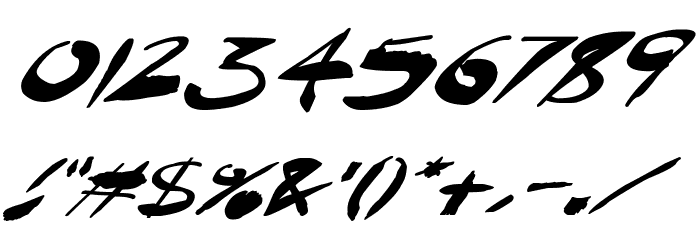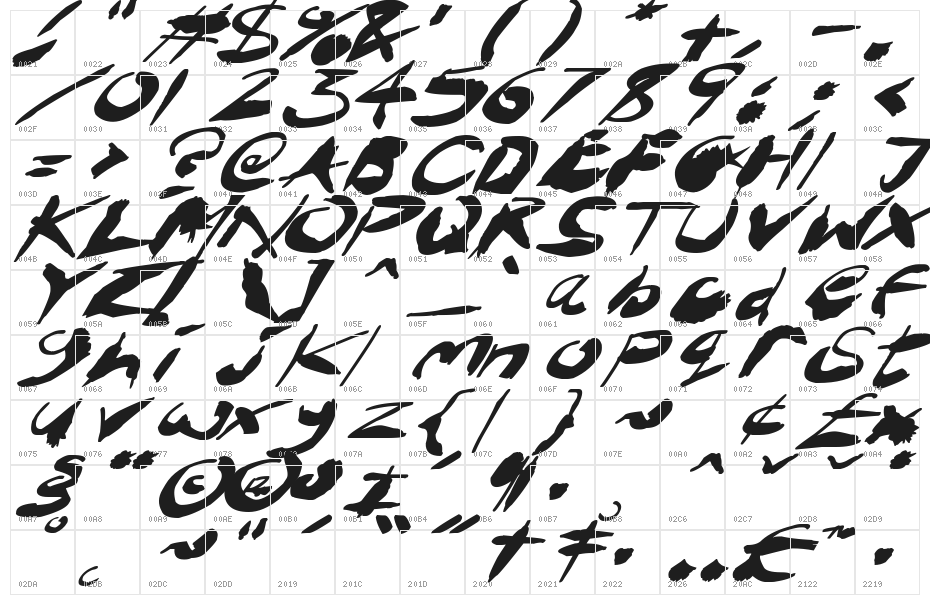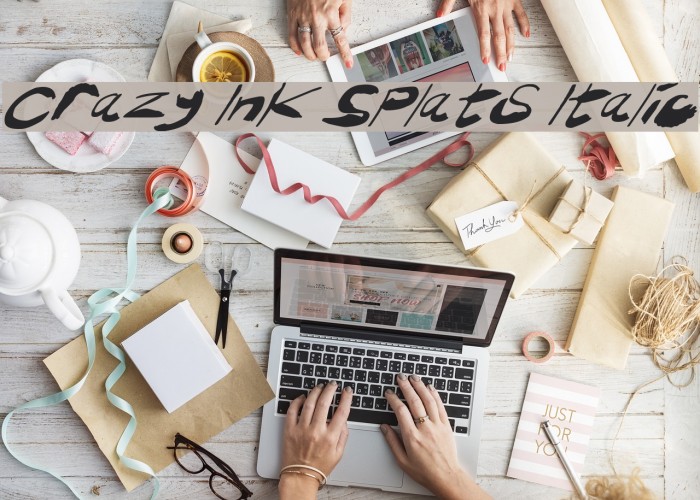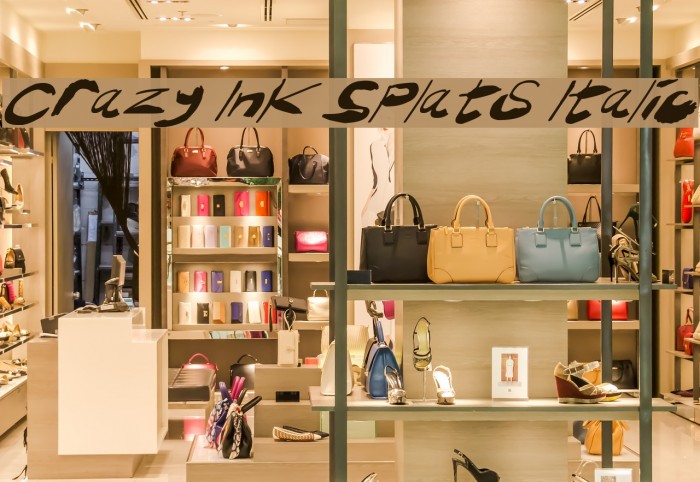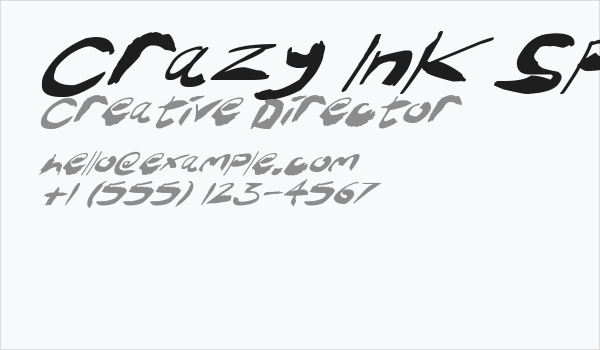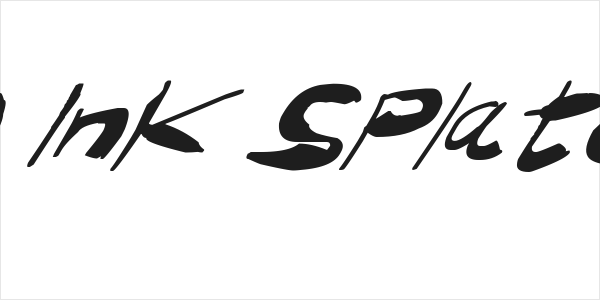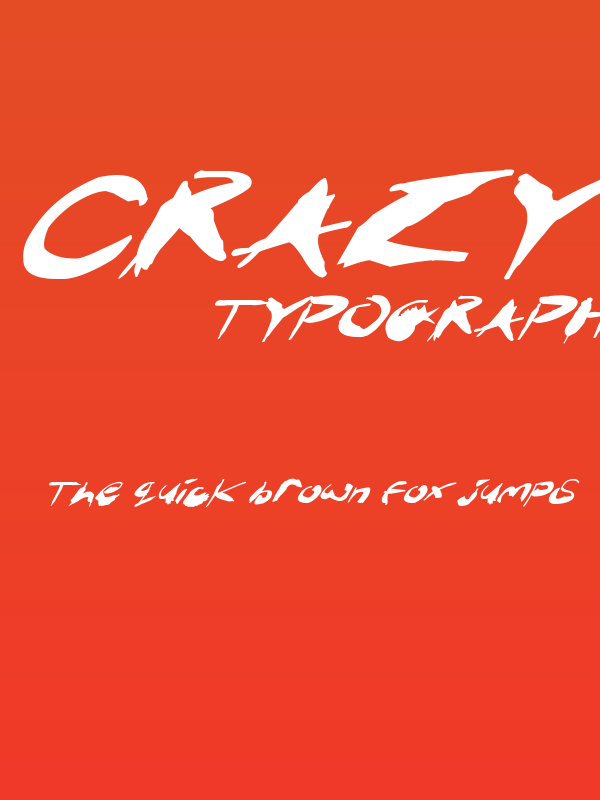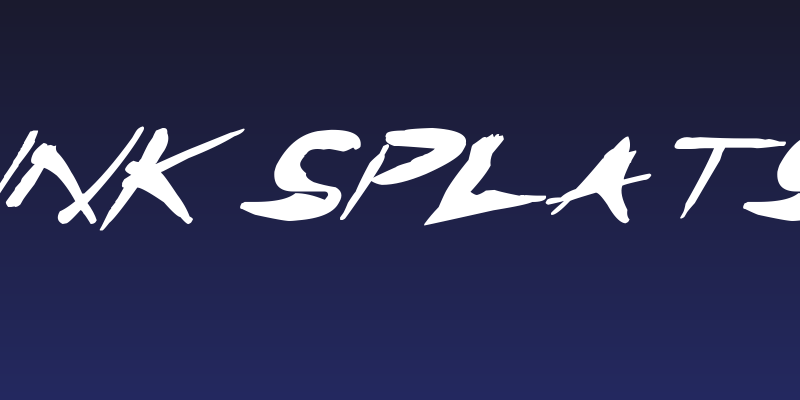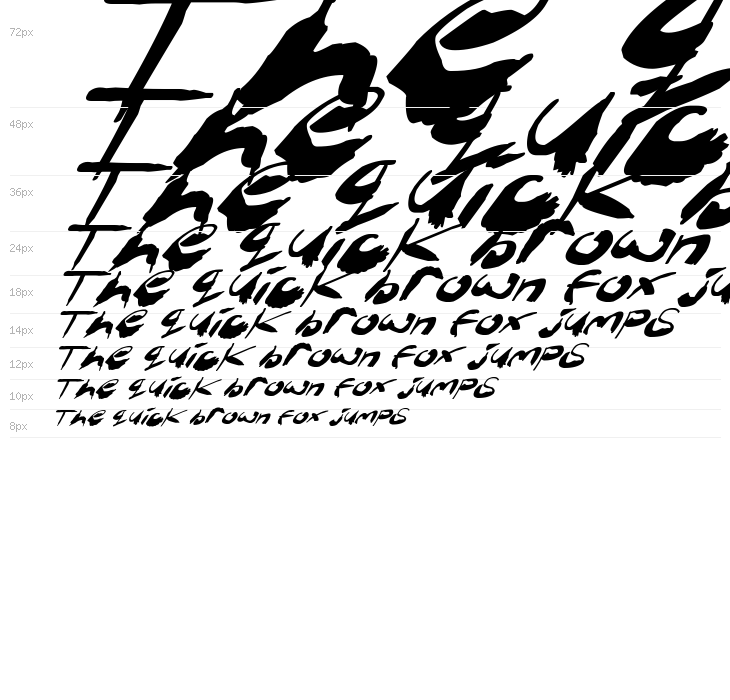
Crazy Ink Splats Italic Font
Crazy Ink Splats Italic Description
This font features an expressive and dynamic style, characterized by bold, irregular strokes that mimic the appearance of ink splatters. The letters have a fluid, hand-drawn quality, with varying thicknesses and a sense of movement. The uppercase and lowercase letters maintain a consistent style, with sharp angles and dramatic curves. Numbers and special characters follow the same energetic design, making them stand out. The overall impression is one of creativity and spontaneity, suitable for projects that require a bold and artistic touch.
| Use Case | Logos, Posters, Artistic projects |
| Proposed Projects | Ideal for artistic projects, album covers, posters, and branding that seeks a creative and edgy look. |